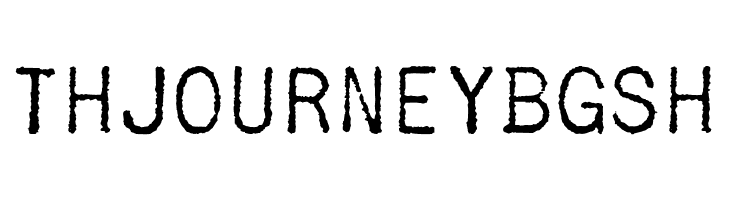
Telegram HPLHS Font
A vintage, distressed typewriter-style font with a monospaced, textured appearance.
TelegramHPLHS Font
Font by HPLHS Prop Fonts - Andrew H. Leman http://www.cthulhulives.org/toybox/propdocs/propfonts.html
A vintage, monospaced font with a distressed, typewriter-like appearance.